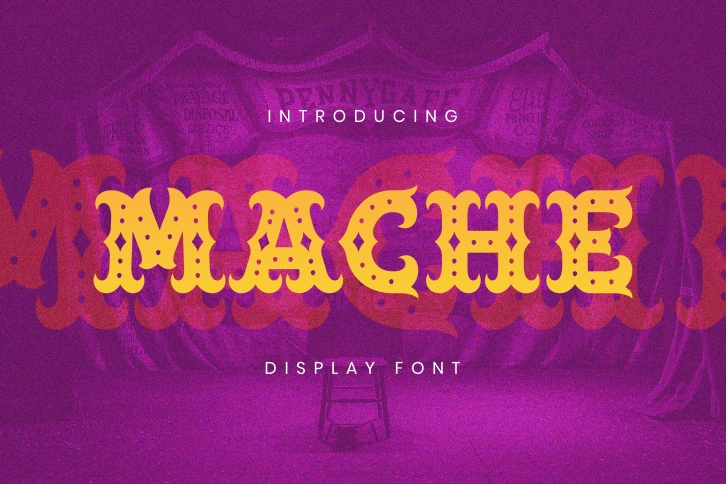
MACHE is a trendy and unique font with an authentic style. It was designed by Ovoz shop and it's a great choice for creative people who need such a font. It was released on October 27, 2021 and the file size is 7.22 MB. MACHE will add an organic vibe to any design idea!